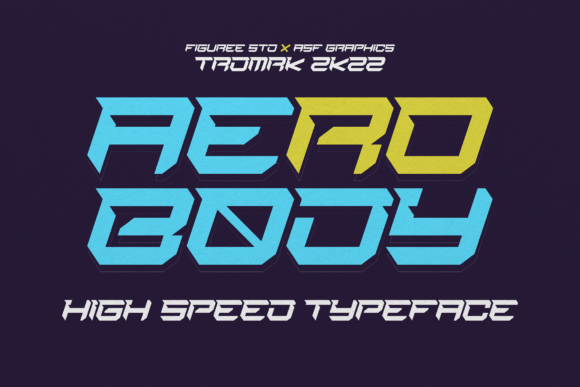
The Ultimate Racing Font: Unleashing the Power of Aerobody
I’ll never forget the rush of working on a high-stakes racing project, only to hit a roadblock: finding the perfect font. My client wanted a bold, attention-grabbing typeface that screamed speed and performance. I scoured the internet, but nothing seemed quite right – until I stumbled upon Aerobody. This powerful racing theme font has been a game-changer for my design work, and I’m excited to share its awesomeness with you! 🚗
Aerobody has quickly become a go-to font in my design arsenal. Here’s what I’m loving:
- ✨ Versatility: Aerobody is built for a wide range of applications, from headlines and jerseys to logos, branding, posters, and packaging.
- ✅ High-impact visuals: This font is designed to grab attention and convey a sense of speed and performance.
- ⚡️ Modern aesthetic: Aerobody’s sleek lines and sharp edges give it a fresh, contemporary feel.
Of course, no font is perfect. A few minor quirks to keep in mind:
- 🤔 Limited serif options: As a sans-serif font, Aerobody might not be the best fit for projects requiring a more traditional, serif look.
- ⚠️ Glyph limitations: While Aerobody comes with a range of OpenType features, some users might find the glyph set a tad limited for certain projects.
Aerobody’s creator drew inspiration from the world of high-speed racing, aiming to craft a font that embodies the thrill of competition and the rush of adrenaline. The result is a typeface that’s both bold and beautiful, perfect for designers seeking to add a touch of high-octane excitement to their projects.
| Author | figuree studio |
| What type of projects is Aerobody best suited for? | Aerobody is perfect for racing sports, automotive, and high-performance projects, including logos, branding, posters, packaging, and advertising. |
| Does Aerobody support OpenType features? | Yes, Aerobody comes with a range of OpenType features, including stylistic alternates and glyphs. |